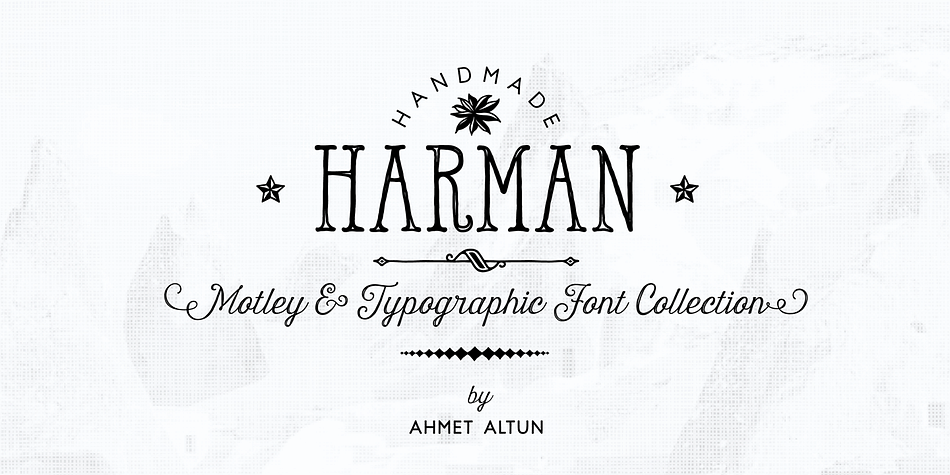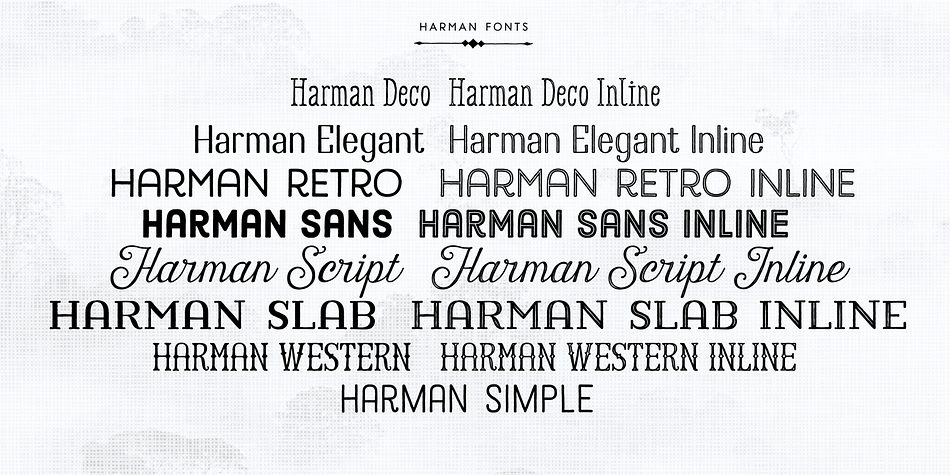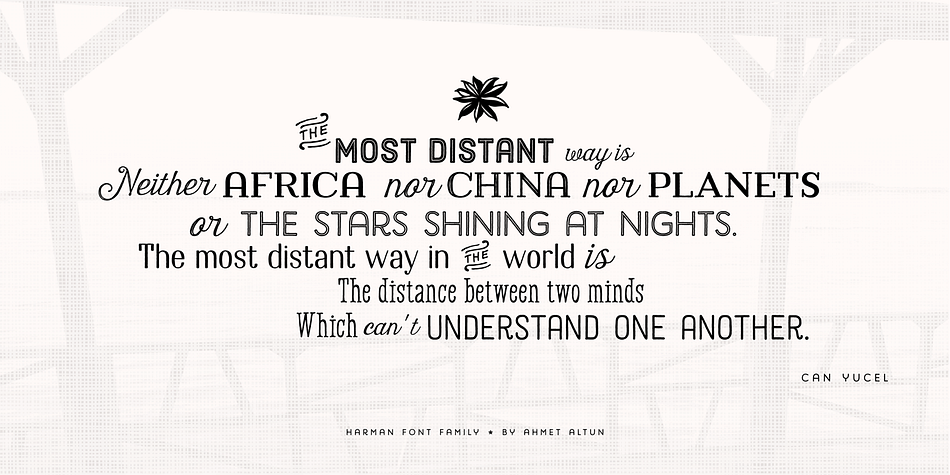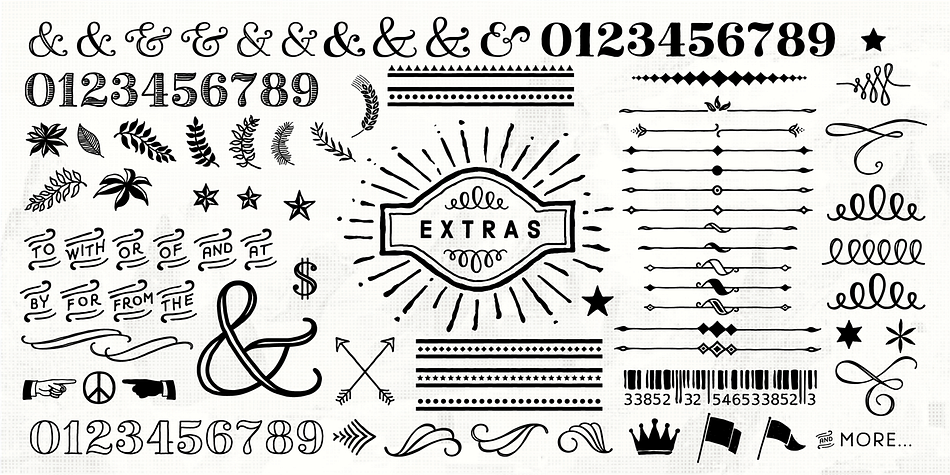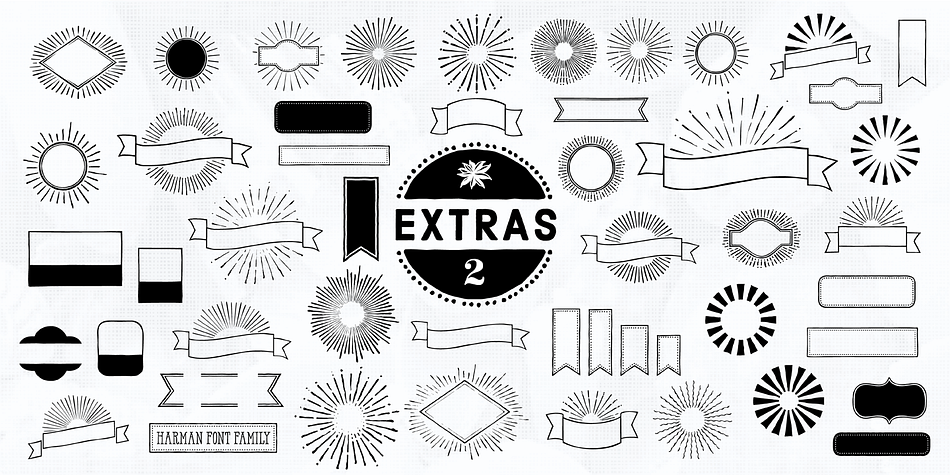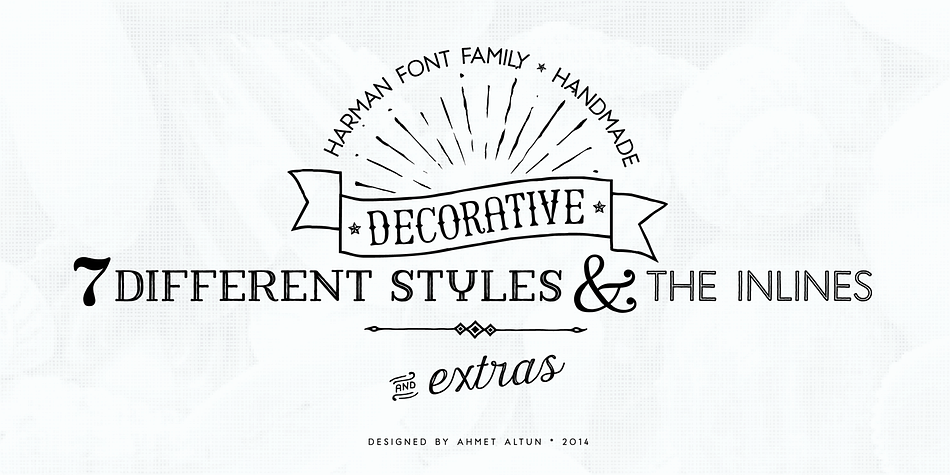
Harman is a multiple classification font family. This typeface has seventeen styles and was published by Ahmet Altun.
Harman Font Family includes Seven fonts and their inline forms that have different styles from each other but at the same time compatible with together. This font collection is completely hand-maden. In addition to, it includes very useful extra elements.
The word “Harman” is a Turkish word meaning the blend in English.
Harman Font Family Collection was designed carefully to create the elegant typographic works. It would be a perfect choice to design posters, affiches, logos, t-shirt and magazine prints, eye-pleasing typographic designs and more.
Styles | Display Sans, Display Slab, Hand Display, Sans Serif, Script, Western, Dingbat |